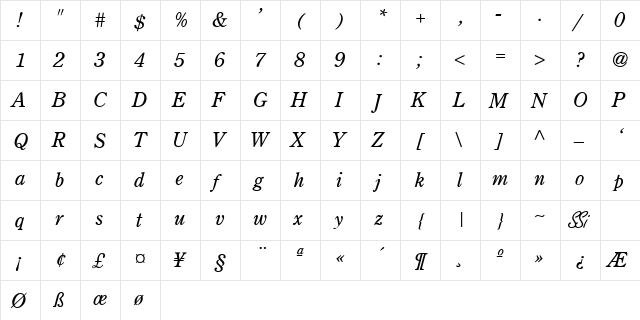
Century Retrospective Light SSi Light Italic Font Preview
Design Context for Century Retrospective Light SSi Typeface
Century Retrospective Light SSi has the warm character of retro typography — evoking diners, record sleeves, and the golden age of print advertising. The dynamic lean of this cut emphasises speed and emphasis in any layout. Its slender proportions lend an understated elegance to any composition.
Font Pairing: Combine Century Retrospective Light SSi with a simple slab or neutral sans — period-accurate companions reinforce the vintage feel without competing for attention.
Pro Tip: Lean into Century Retrospective Light SSi's period character by pairing it with aged paper textures, muted colour palettes, and vintage illustration styles.